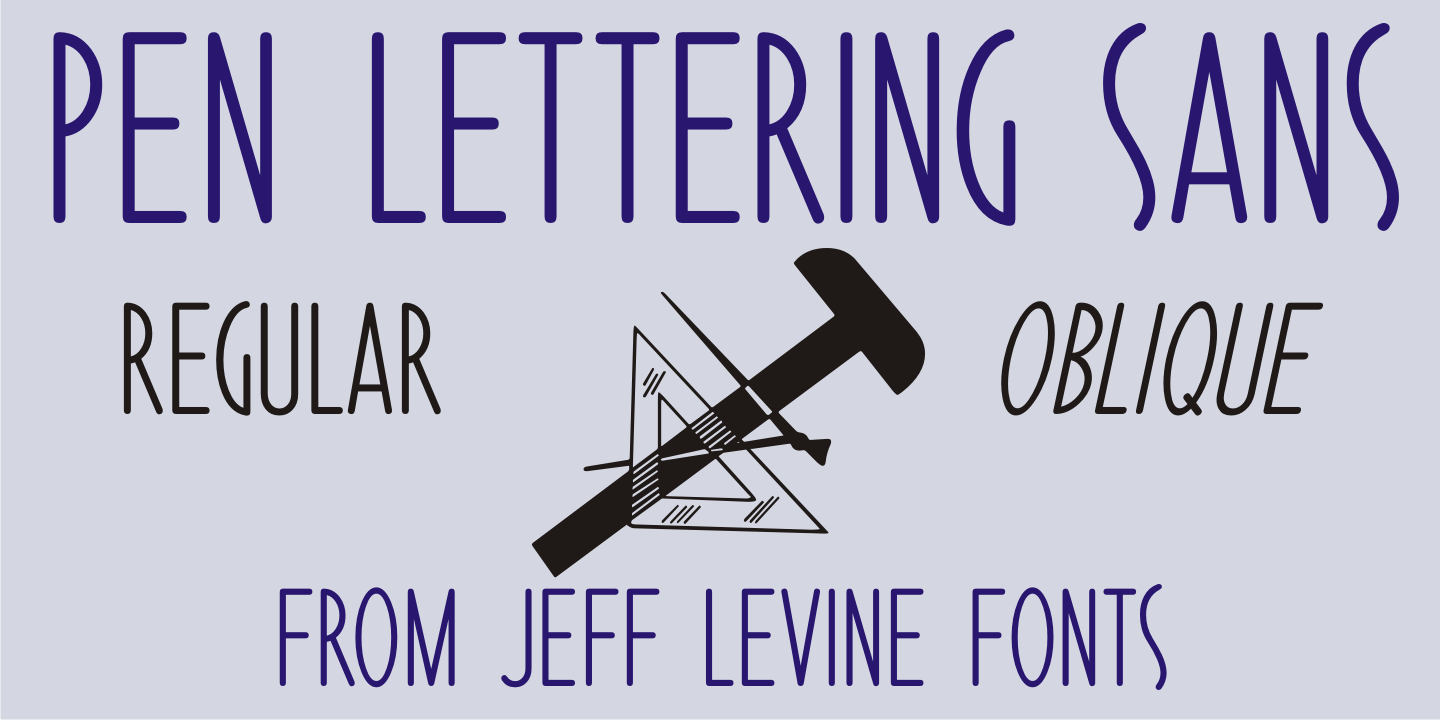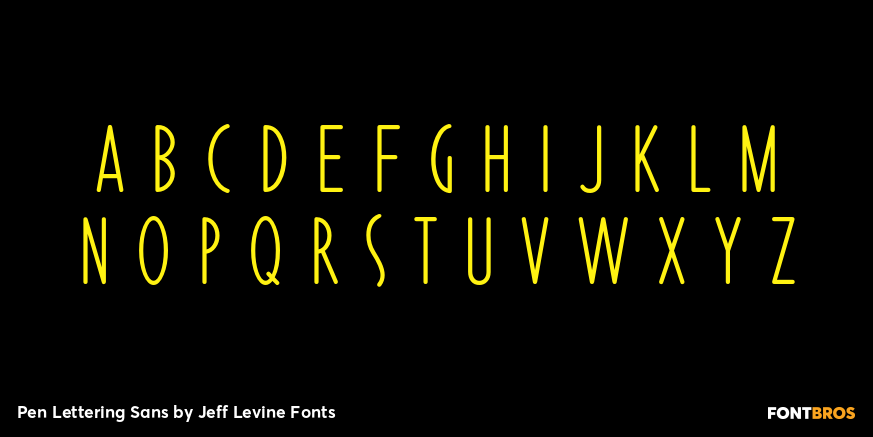
Pen Lettering Sans
A 1935 song with the unusual title of 'Dinner for One Please, James” had its title hand lettered on the cover of the sheet music with simple, condensed letters made by a round point dip pen.
This has been reproduced in a digital font as Pen Lettering Sans JNL, and is available in both regular and oblique versions.